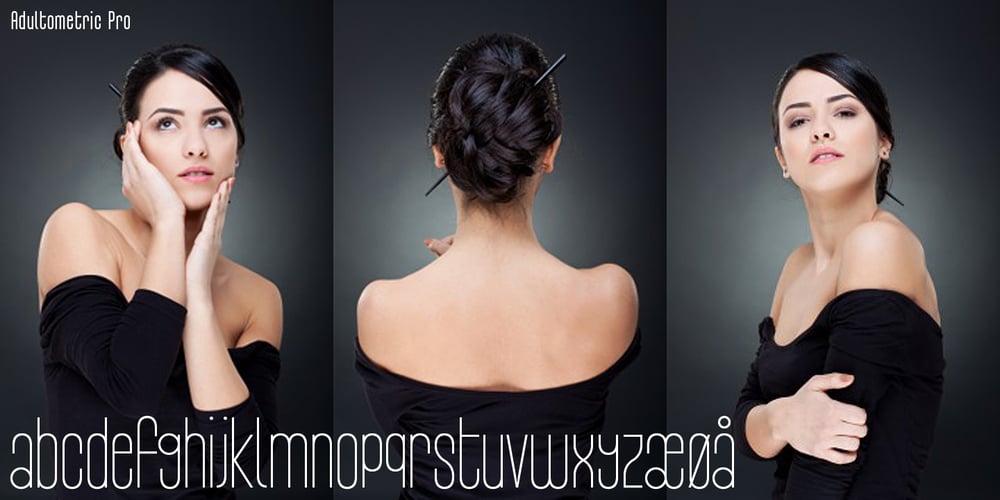
Adultometric Pro Font Family was designed by Roger S. Nelsson and published by CheapProFonts. Adultometric Pro contains 3 styles and family package options. This is the mature version of our previous release Infantometric Pro – The same basic skeleton, but with a more normal x-height. One feature is that no letters (except some accented letters – with cedillas, ogoneks and comma accents) go below the baseline, so this is one condensed font that is perfect for headlines! ๐ ALL fonts from CheapProFonts have very extensive language support: They contain some unusual diacritic letters (some of which are contained in the Latin Extended-B Unicode block) supporting: Cornish, Filipino (Tagalog), Guarani, Luxembourgian, Malagasy, Romanian, Ulithian and Welsh. They also contain all glyphs in the Latin Extended-A Unicode block (which among others cover the Central European and Baltic areas) supporting: Afrikaans, Belarusian (Lacinka), Bosnian, Catalan, Chichewa, Croatian, Czech, Dutch, Esperanto, Greenlandic, Hungarian, Kashubian, Kurdish (Kurmanji), Latvian, Lithuanian, Maltese, Maori, Polish, Saami (Inari), Saami (North), Serbian (latin), Slovak(ian), Slovene, Sorbian (Lower), Sorbian (Upper), Turkish and Turkmen. And they of course contain all the usual “western” glyphs supporting: Albanian, Basque, Breton, Chamorro, Danish, Estonian, Faroese, Finnish, French, Frisian, Galican, German, Icelandic, Indonesian, Irish (Gaelic), Italian, Northern Sotho, Norwegian, Occitan, Portuguese, Rhaeto-Romance, Sami (Lule), Sami (South), Scots (Gaelic), Spanish, Swedish, Tswana, Walloon and Yapese.